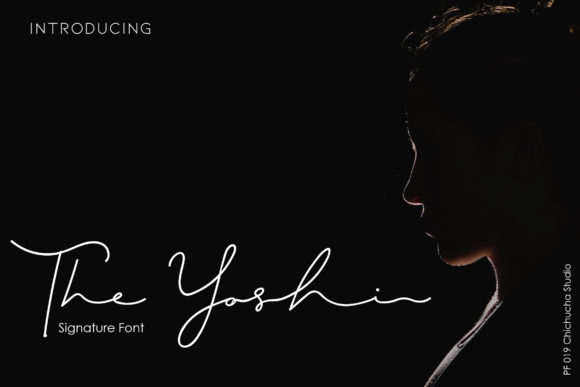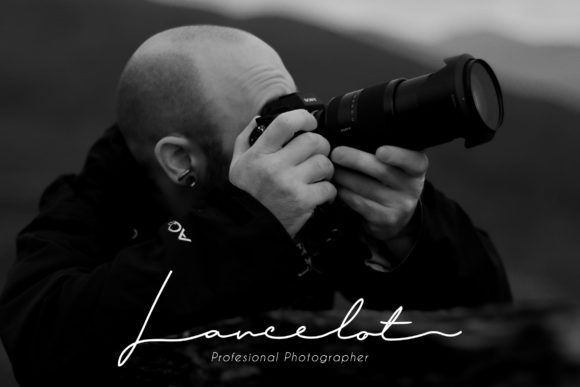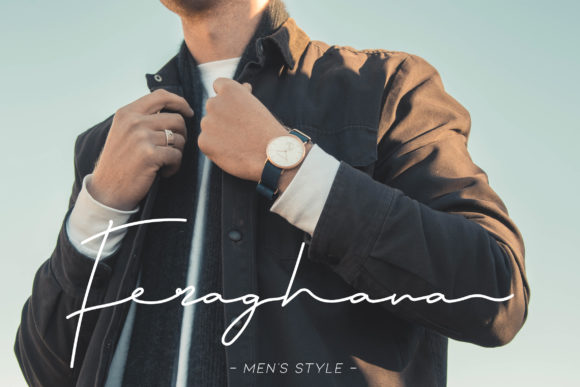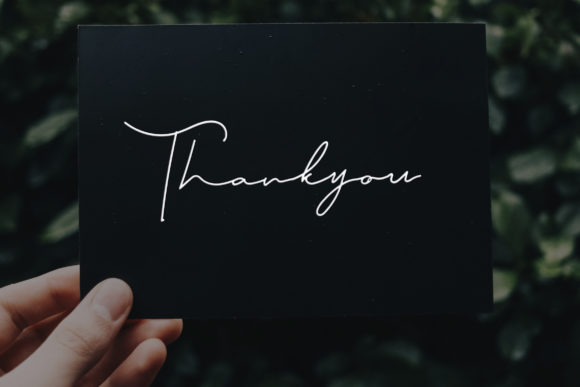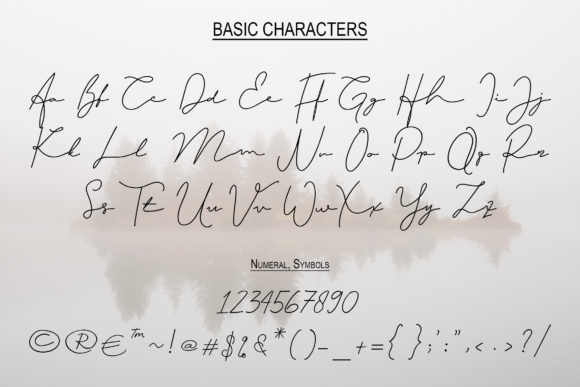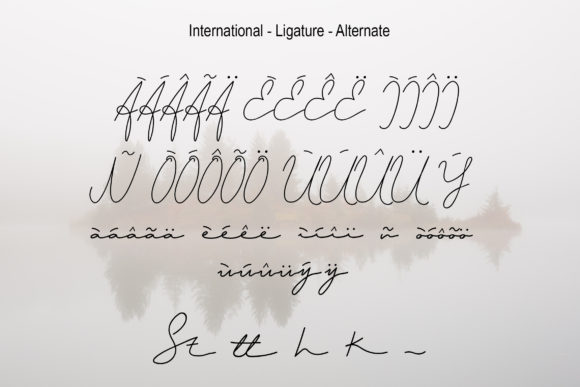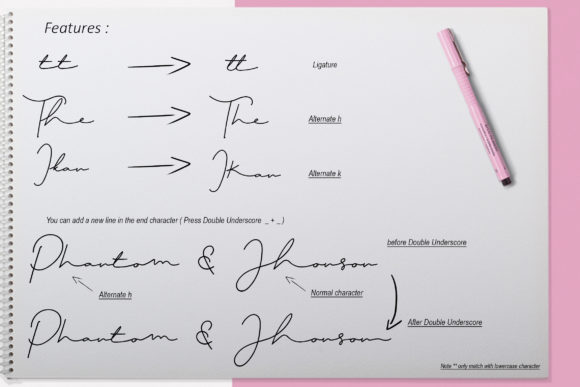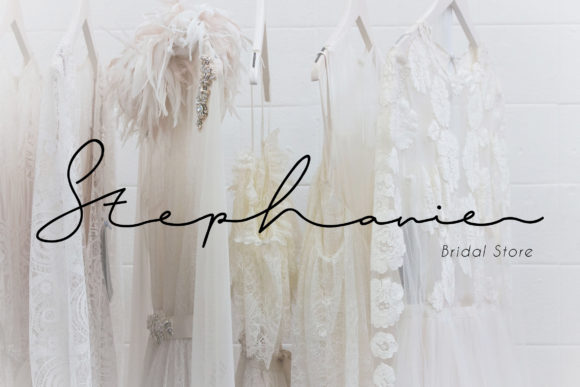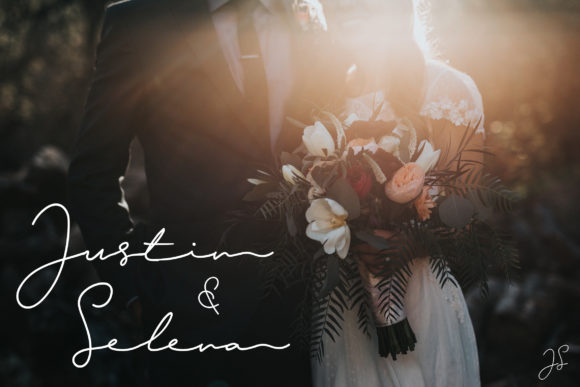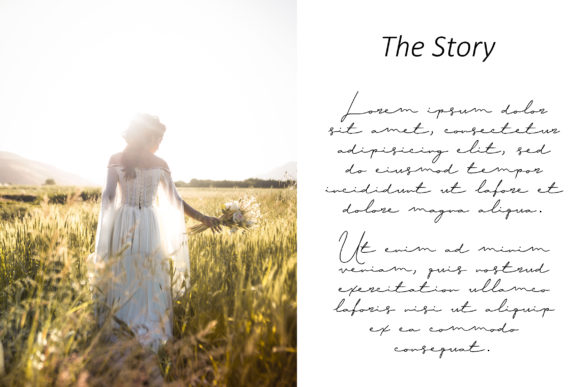
HomeScript FontsThe Yoshi Font Script Fonts The Yoshi Font FacebookXPinterestWhatsApp The Yoshi Font Poster 2 The Yoshi Font Poster 3 The Yoshi Font Poster 4 The Yoshi Font Poster 5 The Yoshi Font Poster 6 The Yoshi Font Poster 7 The Yoshi Font Poster 8 The Yoshi Font Poster 9 The Yoshi Font Poster 10 The Yoshi Font Poster 11 The Yoshi Font Poster 12 About The Yoshi Font The Yoshi is a beautiful signature font that will make any design project look elegant, classy and modern. DOWNLOAD ON CREATIVE FABRICAThis font is sold and delivered by Creative Fabrica. Font Canyon may earn a commission if you buy through this link. People also explored Syrup Jigsaw Font Nurse Font Dream Night Font Kitty Cute Font Andara Font Whimshoot Font Gearfours Font Debtos Font 323 0 TagsThe Yoshi Font Previous articleContributor FontNext articleHummingbird Font LEAVE A REPLY Cancel reply Comment: Please enter your comment! Name:* Please enter your name here Email:* You have entered an incorrect email address! Please enter your email address here Website: Save my name, email, and website in this browser for the next time I comment. Personal Use Free Eric”s Personal Use Free Read more about this font Mandarins Personal Use Free Read more about this font Wanita Cantik Personal Use Free Read more about this font Nikoleta Personal Use Free Read more about this font BLOG The 10 Best Handwriting Fonts to Add Personality to Your Designs 10 of the Best Handwriting Fonts for Adding Personality to Your Designs There will undoubtedly be no other better choice than handwriting fonts to give... Top 7 Google Fonts Alternatives for Faster and Privacy-Friendly Web Design (2025) Free Fonts Risk: Why Free Fonts Can Be Dangerous for Designers Where to Buy American Fonts Online in 2024